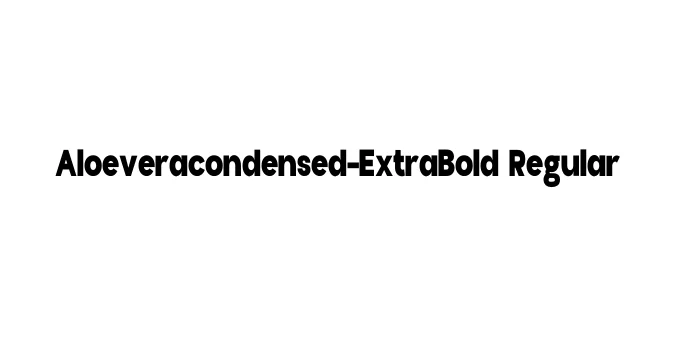
Aloeveracondensed-ExtraBold Regular
Aloevera Condensed ExtraBold Regular is a powerhouse display typeface designed for maximum visual impact in confined spaces. Its narrow proportions and heavy stroke weight create a commanding presence that is both modern and authoritative. The font features clean, geometric lines that ensure legibility even at its heaviest weight, making it a versatile tool for designers who need to make a bold statement without sacrificing elegance or clarity.
Technically optimized for high-resolution displays and print, Aloevera Condensed ExtraBold excels in editorial contexts where verticality is a key design element. It is particularly effective for large-scale typography such as billboards, magazine covers, and cinematic title sequences. The tight kerning and uniform structure allow for dense text blocks that retain a professional, architectural feel, suitable for everything from tech branding to fashion advertising.
Aloeveracondensed-ExtraBold Regular Best Uses
Powerful and tall titles that demand attention.
Modern corporate identities and logo designs.
High-impact promotional materials and call-to-actions.
Eye-catching graphics for Instagram and digital banners.
Magazine covers and bold section headers.